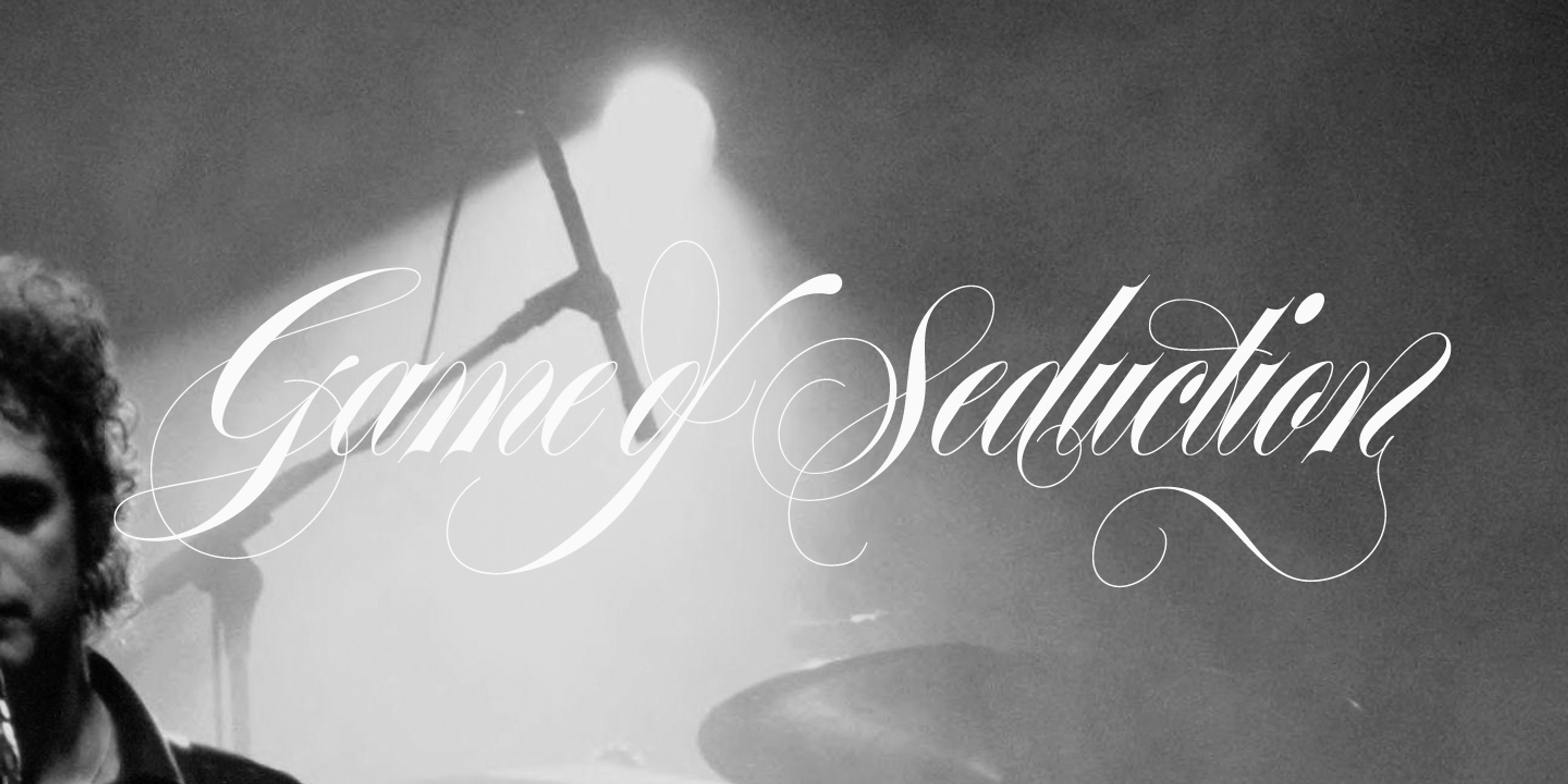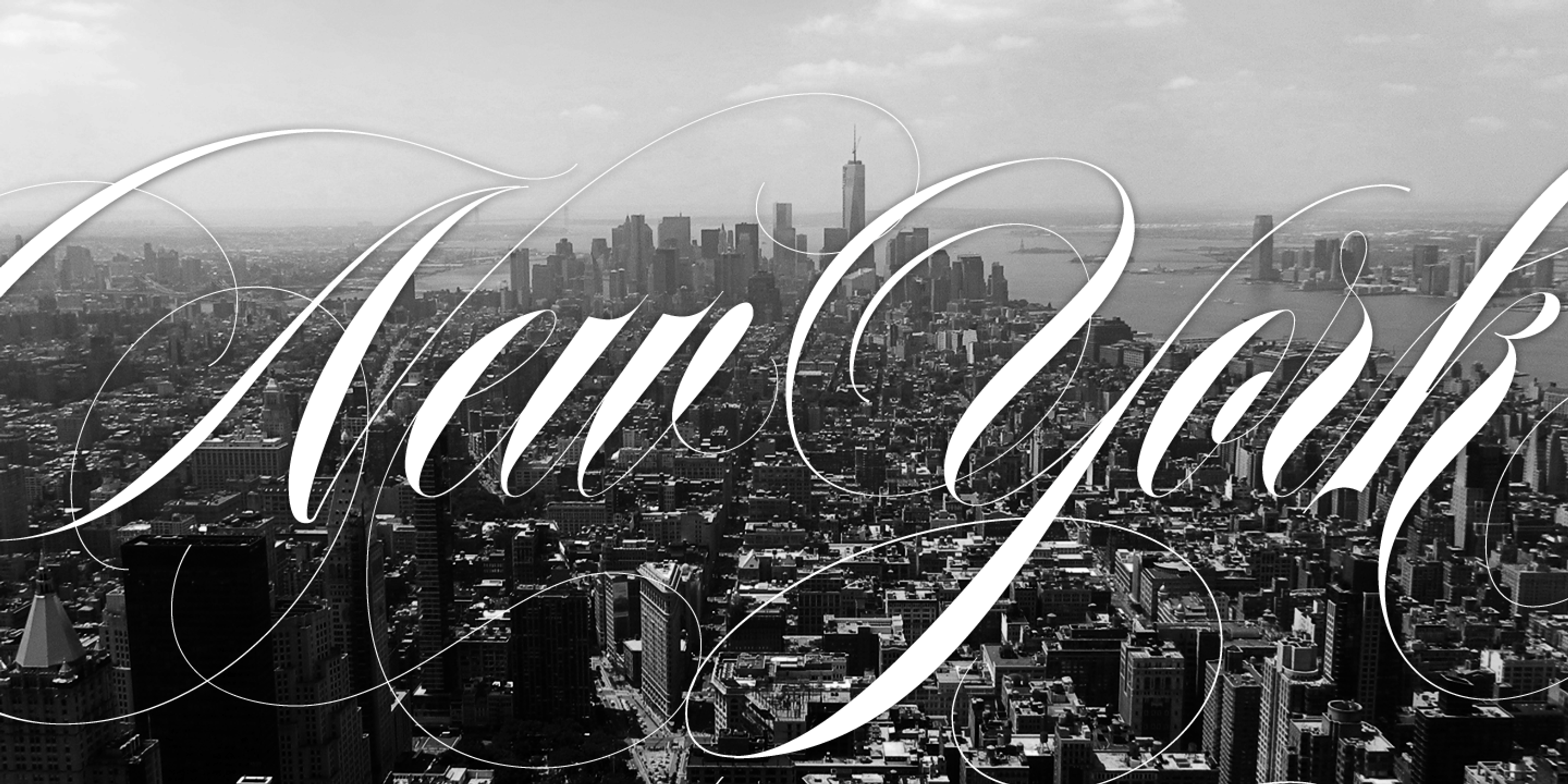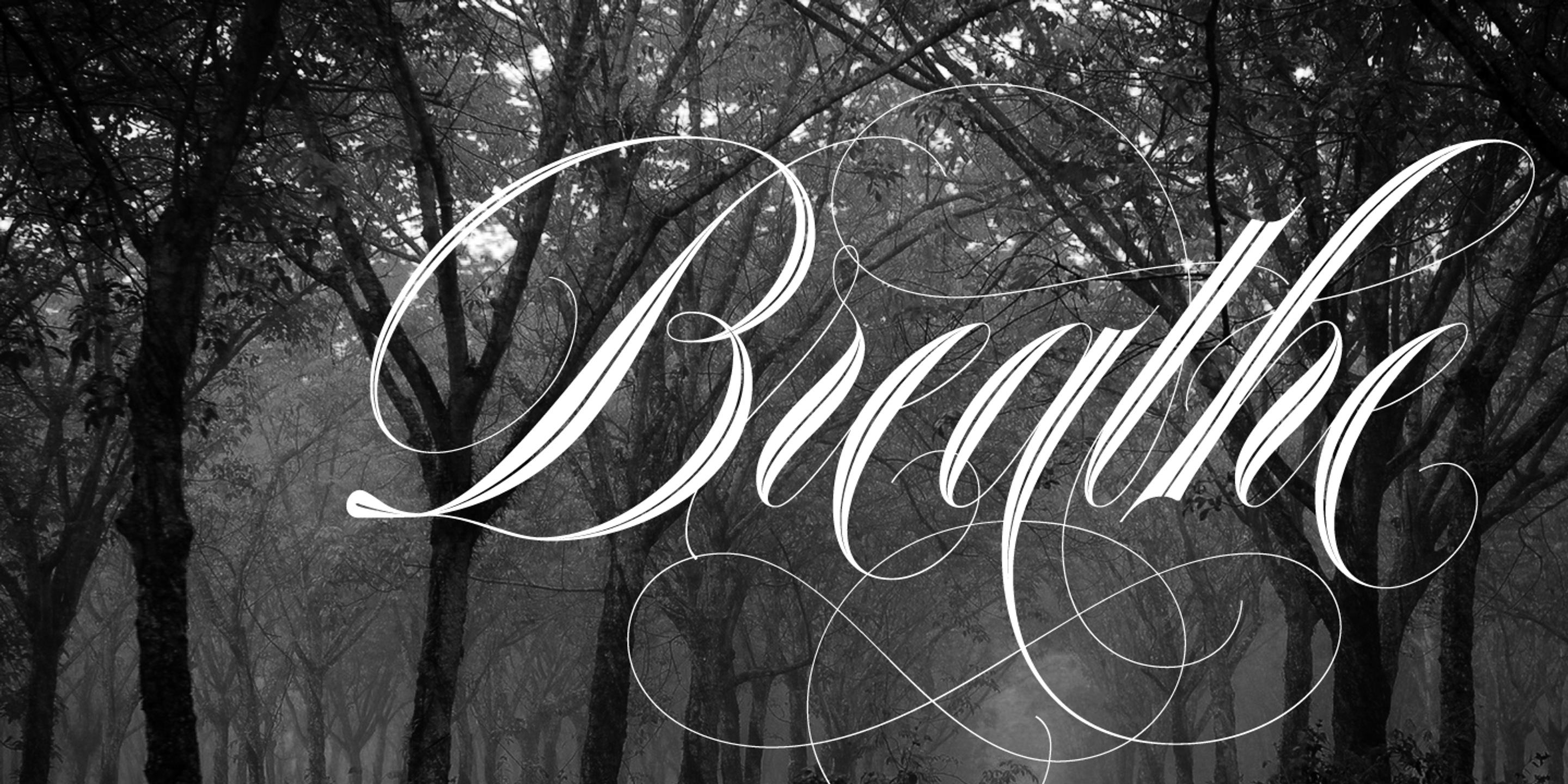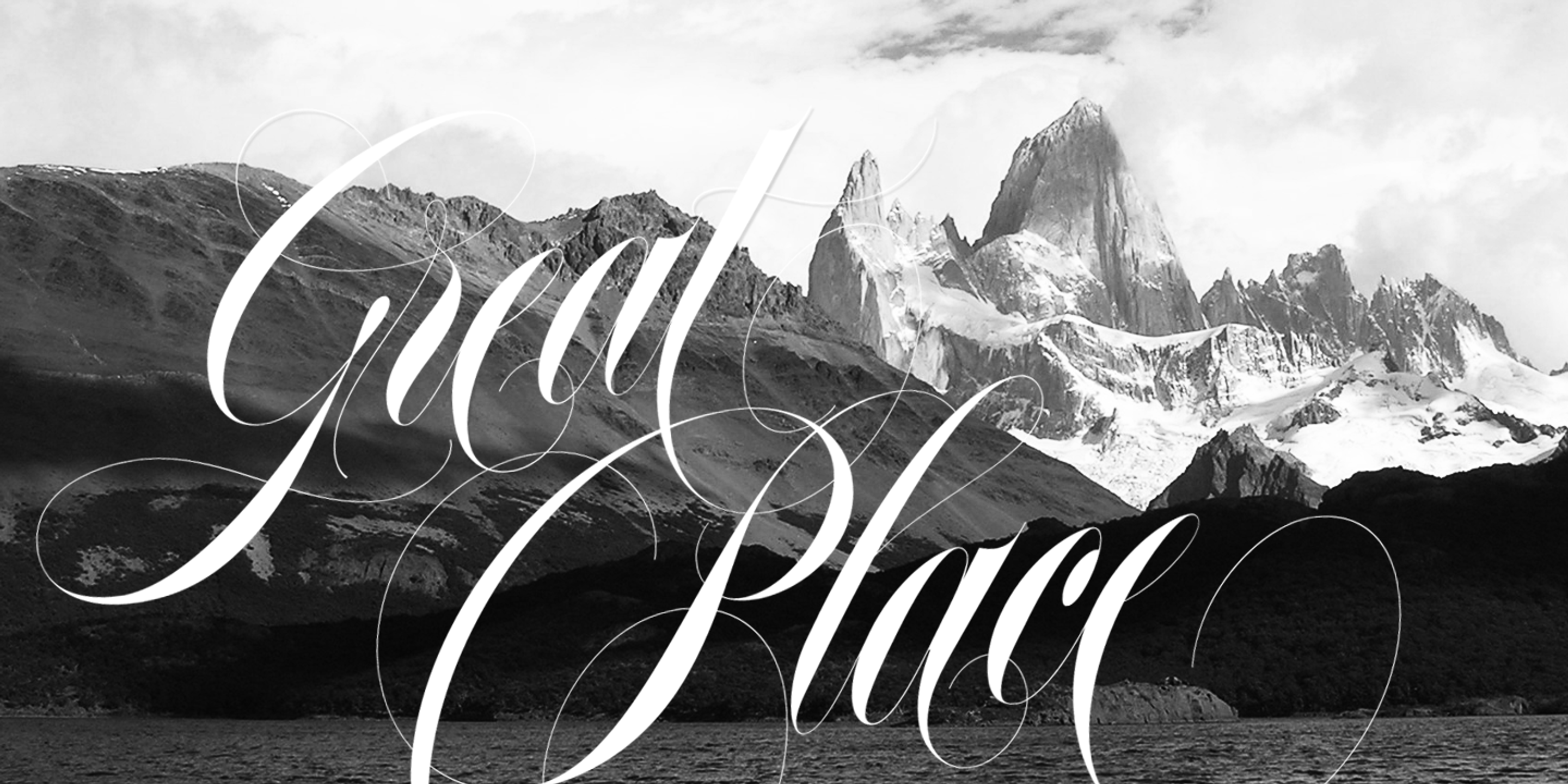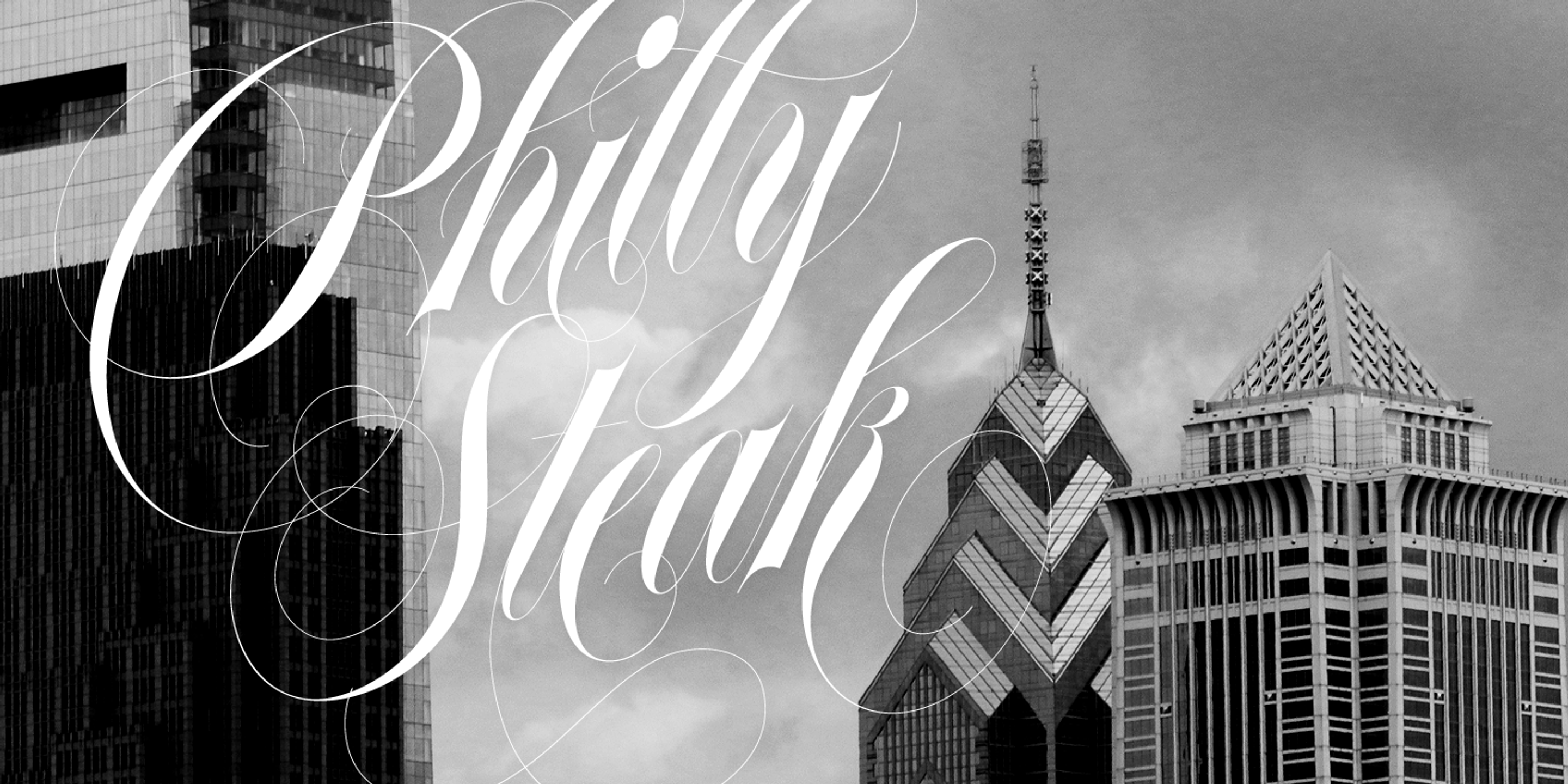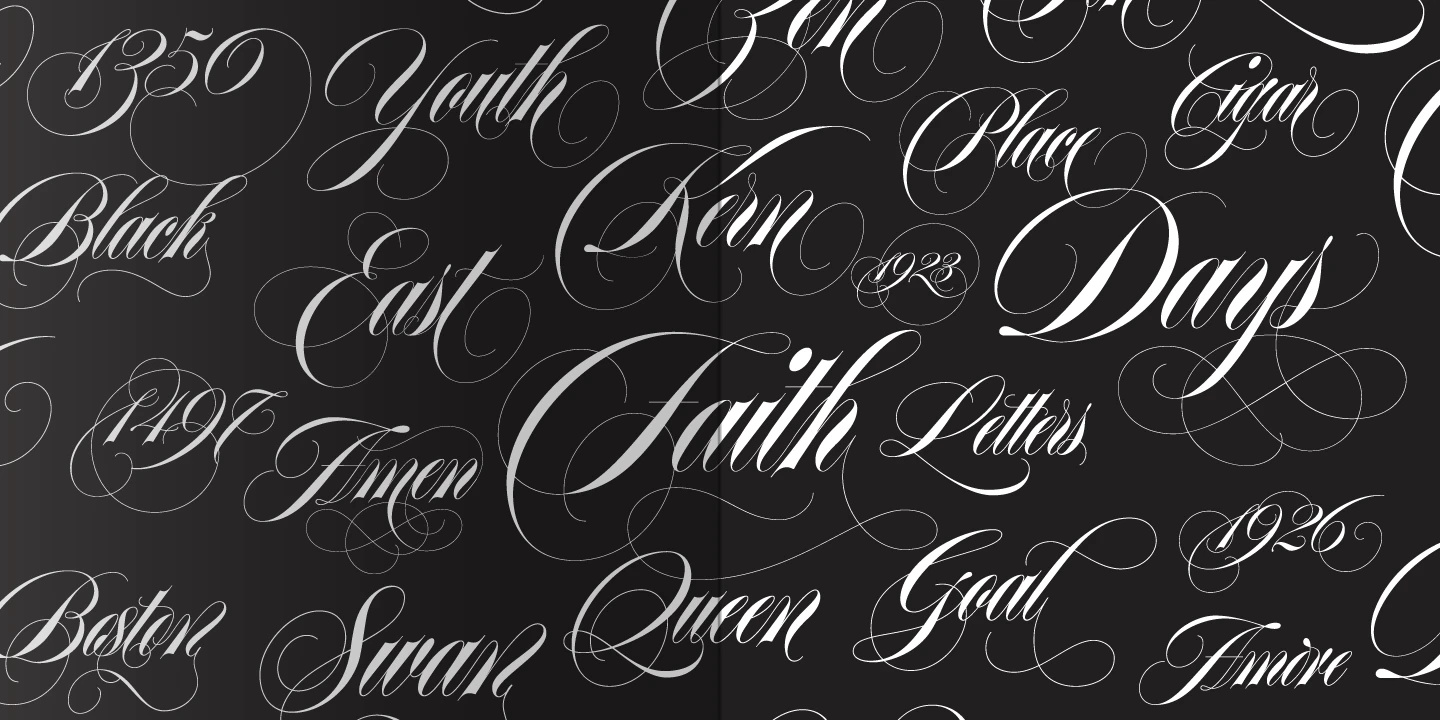
Erotica font by Sproviero Type — the words “Game of Seduction” in an elegant, high-contrast connected script with swash capitals, over a black and white photo of a musician on stage.
Erotica font by Sproviero Type — a pattern of white high-contrast connected script words and numbers, including “Youth”, “Black”, “Faith”, “Days”, and “1926”, with many calligraphic flourishes.
Erotica font by Sproviero Type — the words “New York” in a highly flourished, high-contrast connected script, overlaid on a black and white cityscape
Erotica font by Sproviero Type — the word “Breathe” in an ornate, high-contrast connected script with swashes, set against a black and white photo of trees
Erotica font by Sproviero Type — the words “Great Place” in a high-contrast connected script with many swashes, over a black and white photo of mountains and a lake
Erotica font by Sproviero Type — the connected script words “Philly Steak” with high-contrast strokes and elaborate swashes, overlaid on a black and white photo of city buildings
Erotica Fleurons
Erotica Big
Erotica Inline
Erotica Small
Erotica Capitals Thin
Erotica Details
Erotica is a sumptuous copperplate script designed to explore the elegance of contrast, curves, and calligraphic flourish. Inspired by roundhand and refined through endless experimentation, it includes a wide range of alternates, ligatures, ornaments, and companion styles — from delicate Small to ornate Inline and classic Capitals. It is display typography perfection for magazines, packaging, invitations, posters, and more! Erotica invites expression and personalization with every word.
• Common Ligatures
• Discretionary Ligatures
• Fractions
• Ordinal Numerals
• Ornaments
• Stylistic Alternates
• Stylistic Sets
• Swashes
• Titling Capitals